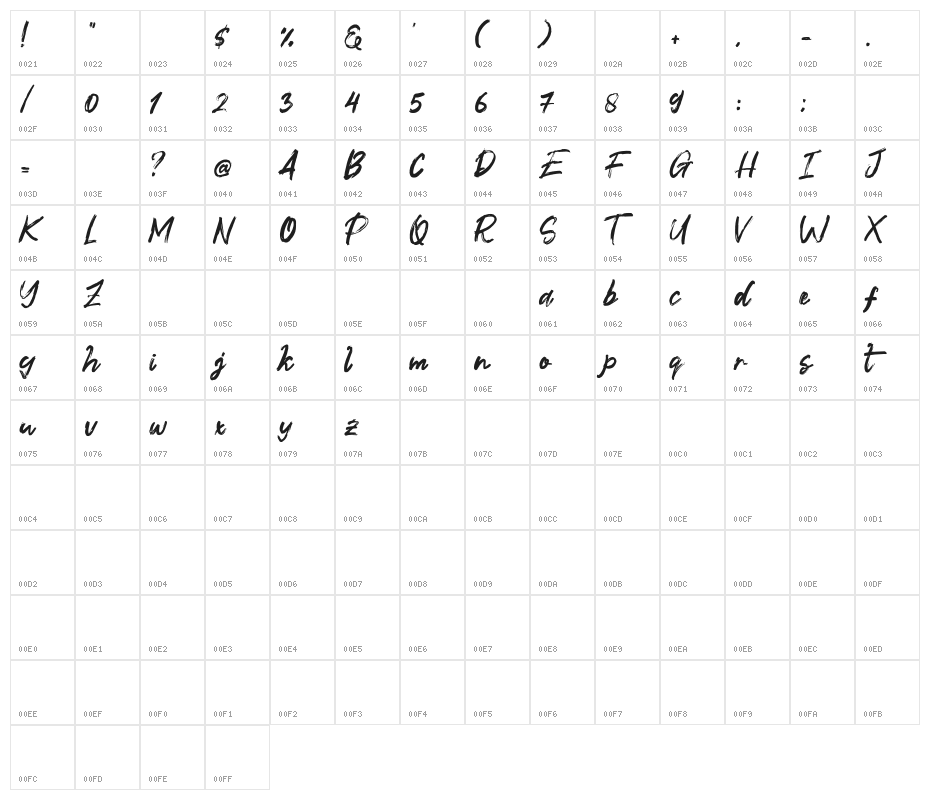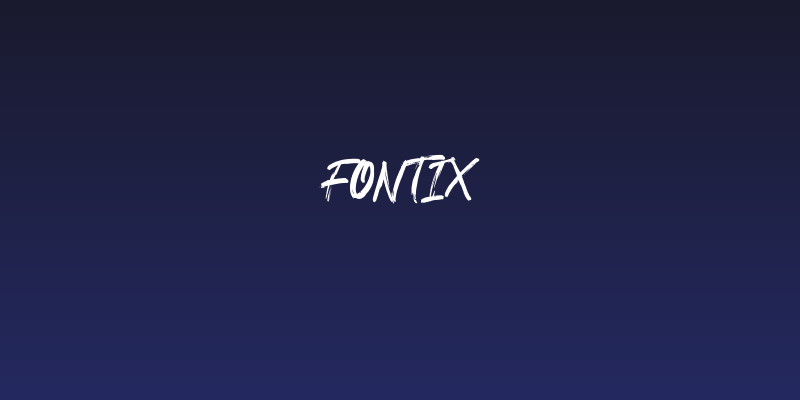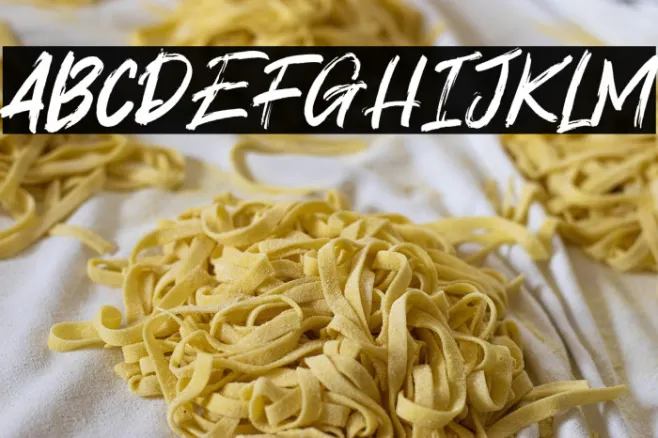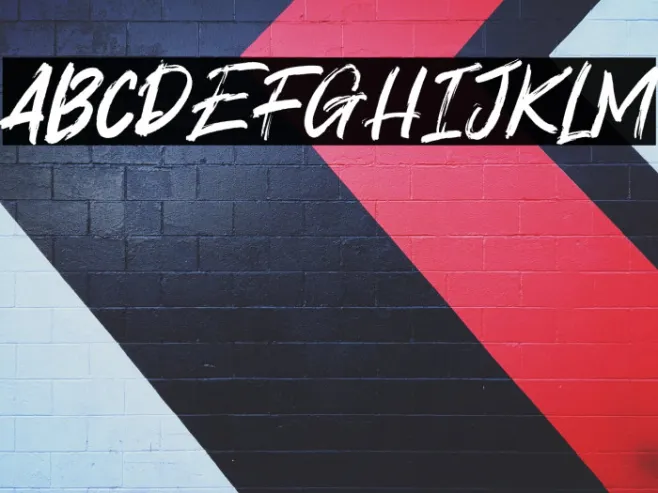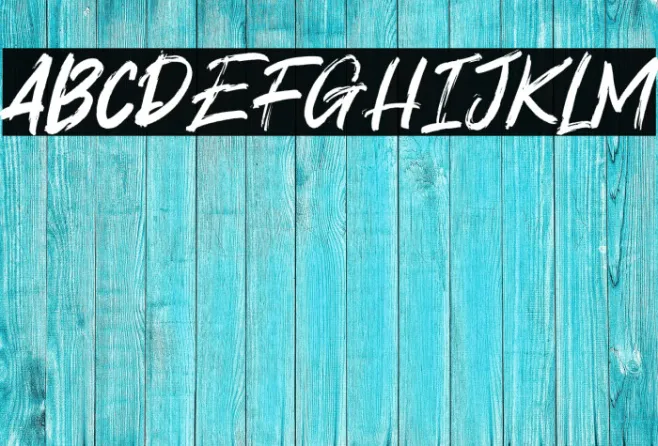
Fontix Font
Fontix Description
This font exudes a dynamic and energetic style, characterized by its brush-like strokes that give it a hand-painted appearance. The letters are bold and expressive, with varying thicknesses that create a sense of movement and fluidity. The uppercase and lowercase letters maintain a consistent style, while the numbers and special characters integrate seamlessly with the overall design. This font's artistic flair makes it stand out, offering a unique and creative touch to any project.
| Use Case | Logos, Posters, Artistic projects |
| Proposed Projects | Ideal for artistic projects, branding, posters, and invitations where a creative and energetic style is desired. |